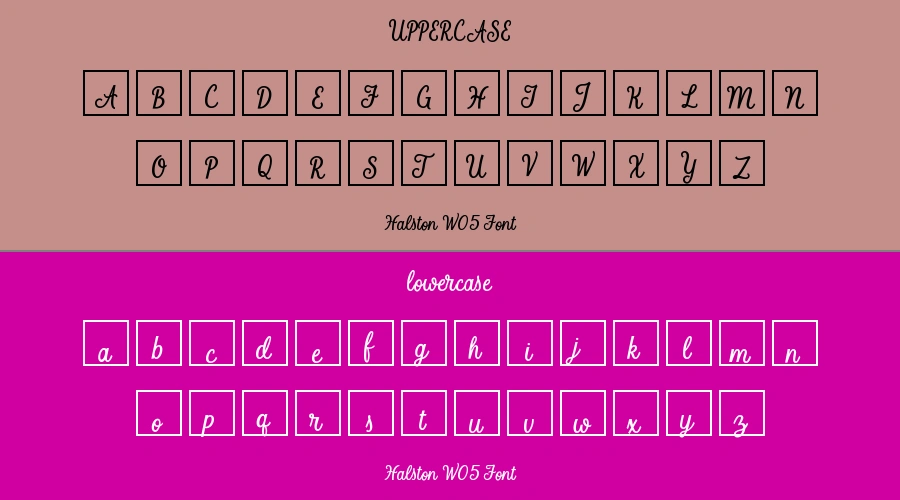
About Halston W05 Font
When typographic excellence matters most, Halston W05 Font delivers through its thoughtful blend of ink flow effects and gray value. Specially crafted for book design, it offers the authenticity and market appeal required for sophisticated design work. Every detail serves a purpose.
The character set showcases thoughtful details like original character alongside functional stylistic sets. This proves especially valuable in identification tags, where reliability directly influences results. Particular attention was paid to joint detail and creative expression during development.